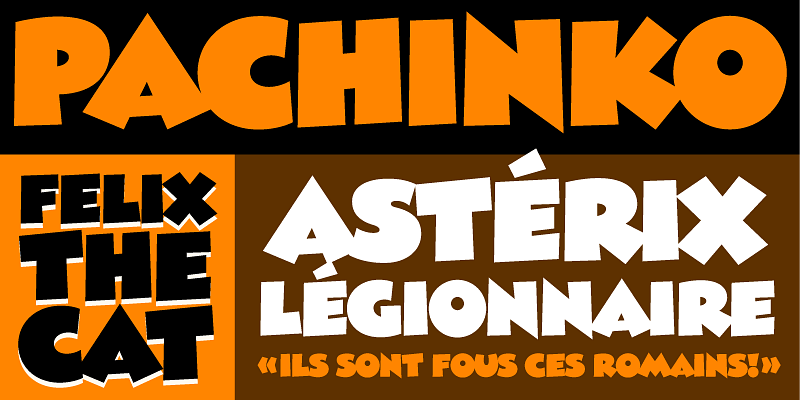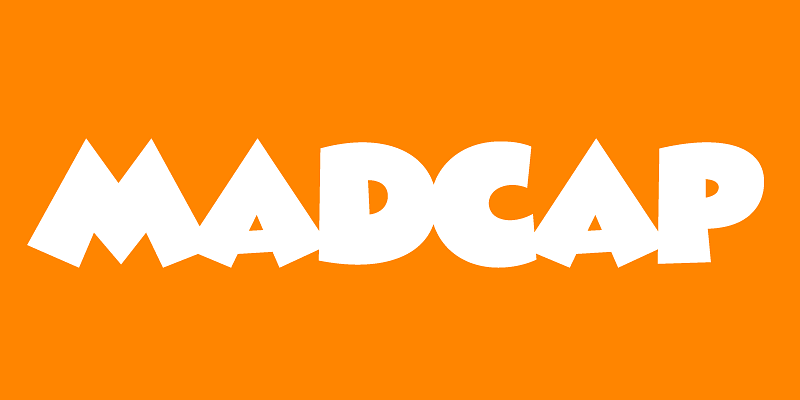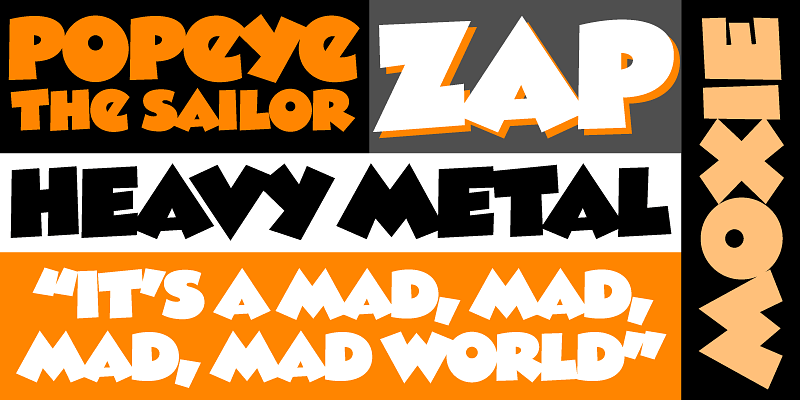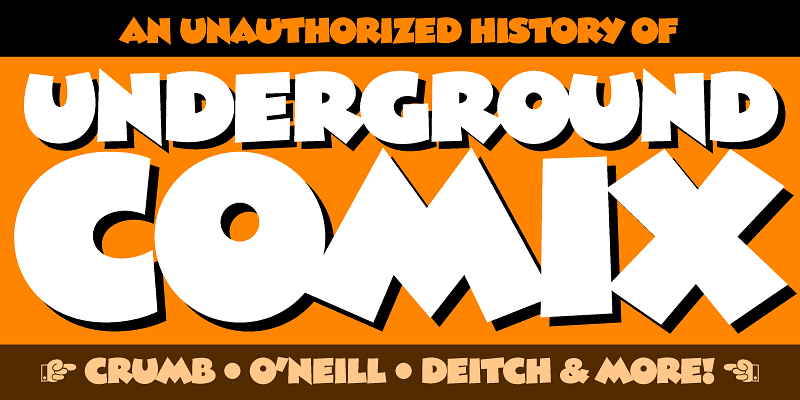
Madcap (2024) has its roots in a style of lettering that its designer, Mark Simonson, used frequently when he was in high school in the early seventies. He was inspired by comic book and greeting card lettering from the sixties. Madcap’s lively appearance comes from its skewed geometry, which avoids anything aligning to a square axis or grid, yet does so with a rhythmic and consistent logic. It’s an all-caps design, and features an alternate lowercase-style “E” and a full set of dingbats.